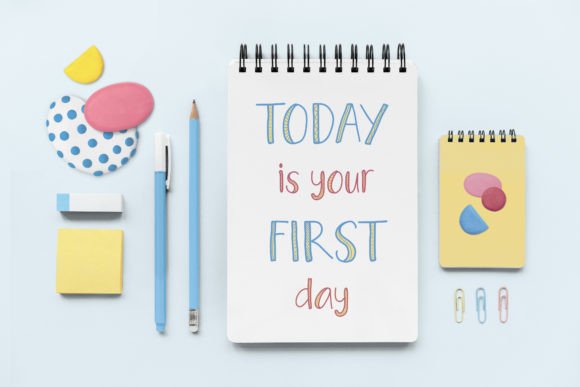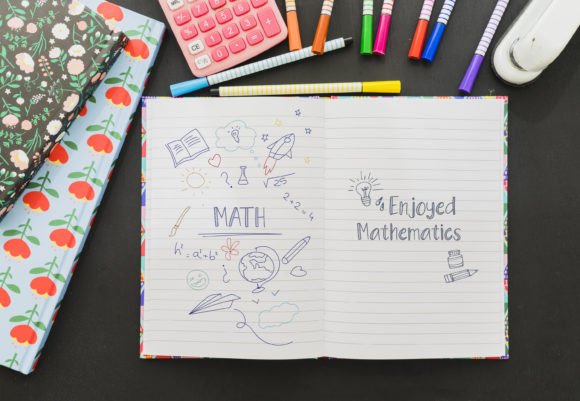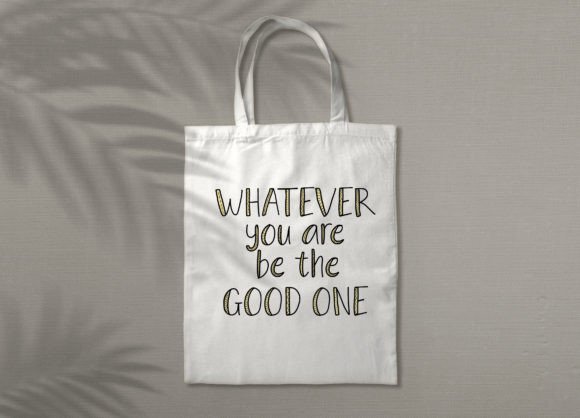
Introduction to Coloured Pencils Font
Coloured Pencils – a cute decorative font.
| 📌 Product Name | Coloured Pencils Font |
| 👤 Author | Asnufy Studio |
Give your graphics a unique and memorable edge with this font This font will be a wonderful asset to your font library, as it has the potential to enhance any creation.
Key Features of Coloured Pencils Font
Why Choose Coloured Pencils Font?
Coloured Pencils Font offers exceptional quality and versatility, making it a valuable addition to your design toolkit. Whether you’re creating for personal projects or commercial use, Coloured Pencils Font delivers professional results.